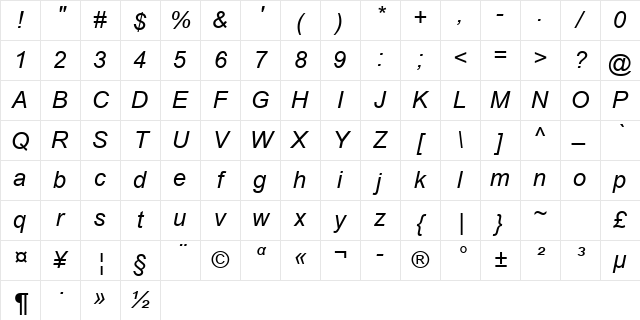
Arial Greek Inclined Free Font
Arial Greek Inclined
Style: Inclined
Complete Arial Greek Inclined glyph index. Displaying only characters natively supported by Arial Greek Inclined font.
Design Context for Arial Greek
Arial Greek is a composed and adaptable typeface that performs quietly and consistently across a wide range of design contexts.